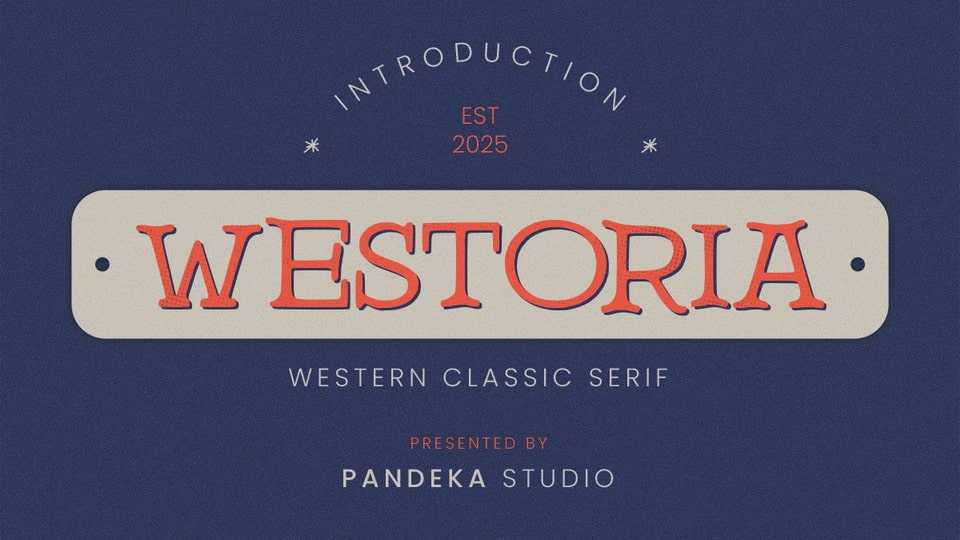
Download Westoria font, a bold serif typeface with a vintage Western aesthetic, perfect for cowboy-inspired designs, rustic branding, classic signage, and bold typography.